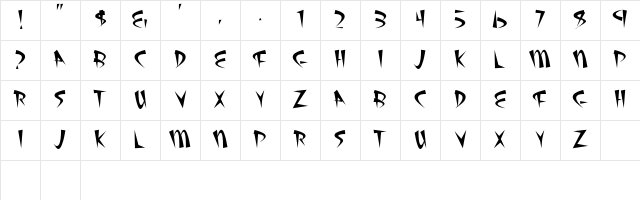
Atomic Plain Free Font
Atomic Plain
Atomic Family
Complete Atomic Plain glyph index. Displaying only characters natively supported by Atomic Plain font.
Design Context for Atomic
Atomic is a composed and adaptable typeface that performs quietly and consistently across a wide range of design contexts.